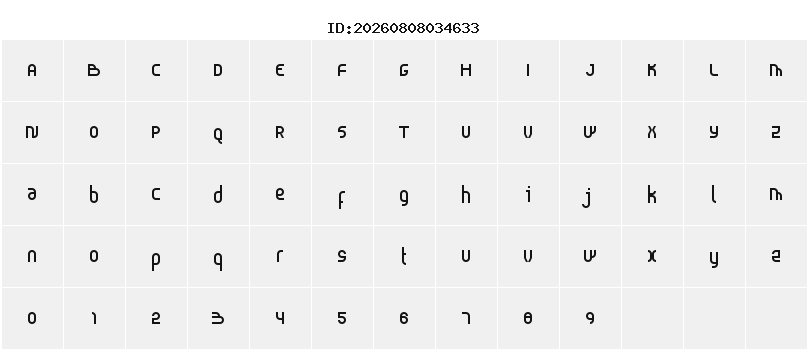
• Font Name: Probolinggo
• Full Font Name: Probolinggo Regular
• Designer: Adien Gunarta
• Description: “Probolinggo” was built with FontStruct
About Probolinggo.ttf
Probolinggo.ttf is a modern, elegant sans-serif font designed for ultimate readability and visual harmony. Perfect for branding, headlines, web design, and print materials.